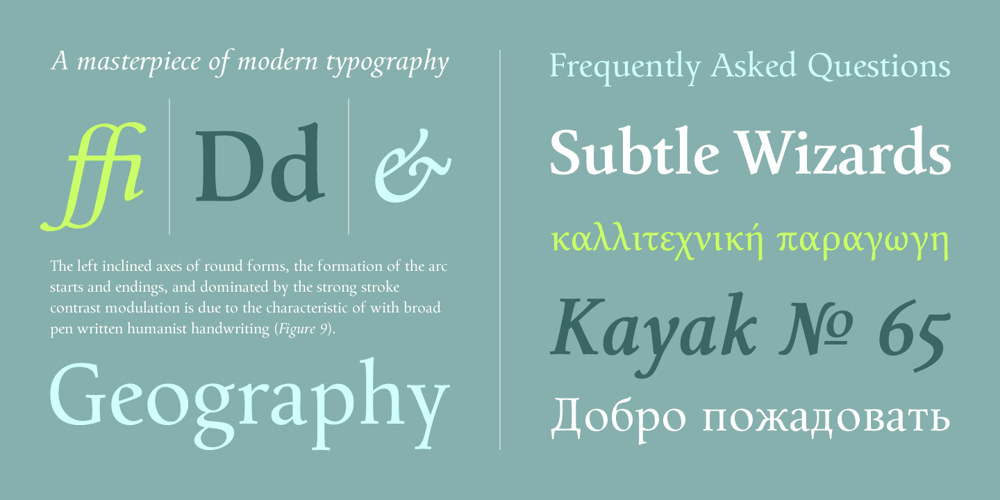
Mengelt Basel Antiqua
Mengelt Basel Antiqua font
Mengelt Basel Antiqua Font Family was designed by Christian Mengelt and published by Linotype. Mengelt Basel Antiqua contains 4 styles and family package options. Inspired by the excellent serif fonts of the Basel printer of the 15th and 16 Century, Christian Mengelt designed the Mengelt Basel Antiqua. The typeface is a Renaissance Antiqua with stylistic reference to the historical model, but with the technical and typographic qualities of a modern text typeface with excellent reading quality.